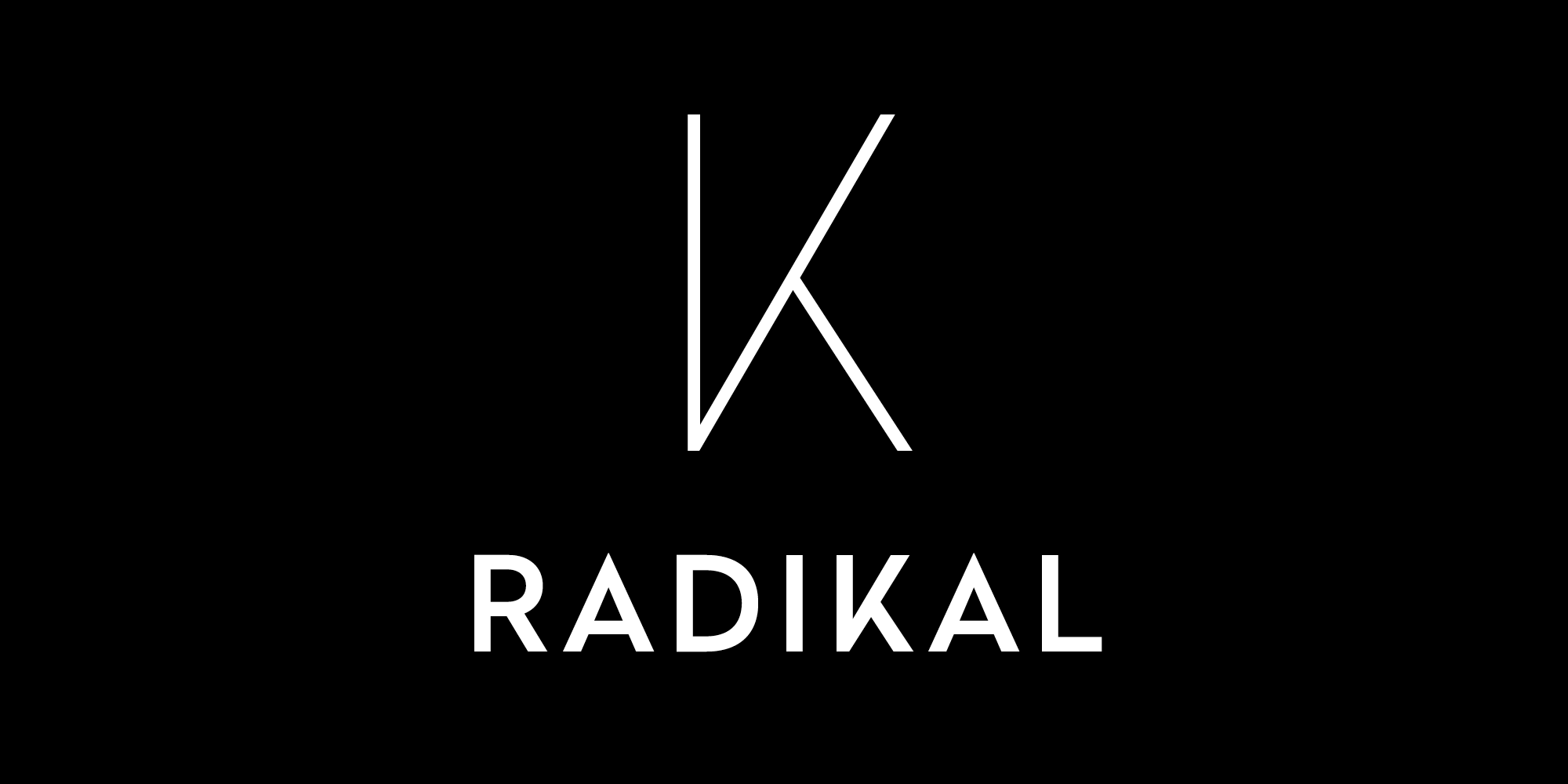
Radikal Font Free Download is a modern, geometric sans-serif typeface designed to bring boldness and clarity to your designs. With its clean, strong lines and contemporary structure, Radikal Font is perfect for logos, branding, headlines, posters, and digital content. The font’s minimalist design ensures that it stands out with confidence and offers excellent legibility across a variety of platforms.
With Radikal Font Free Download, you’ll receive a complete set of uppercase letters, lowercase, numbers, and essential punctuation, making it versatile for both print and digital applications. Whether you’re creating a dynamic logo, building a sleek website, or designing attention-grabbing marketing materials, this font ensures a modern and professional look.
Add boldness and modern sophistication to your design projects with Radikal Font Free Download. Its clean, geometric style makes it a perfect choice for projects that need a confident, contemporary edge.